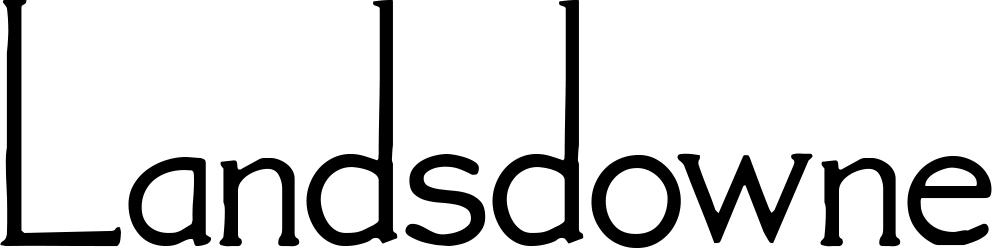
Landsdowne Font
Designed byPaul Lloyd
Sometimes to provoke a new idea, you just need an interesting font to assist you in bringing out the artistic vibes you were looking for. Landsdowne is a retro font, and its thin and long letters make it unique for old storybooks, comic books, signs, and posters.
This typeface comes in two styles that you can choose from. Each of them contains both the uppercase and lowercase of the alphabets, the numbers, and punctuation marks.